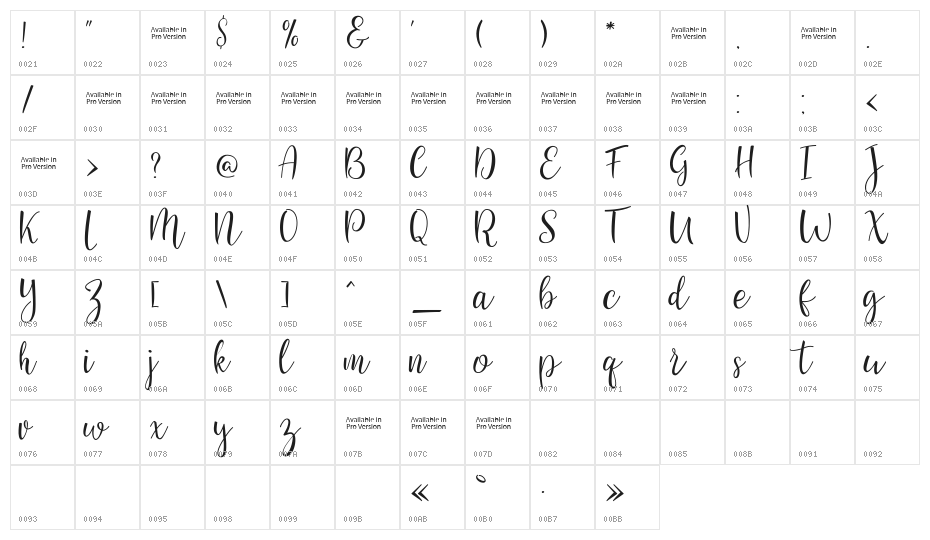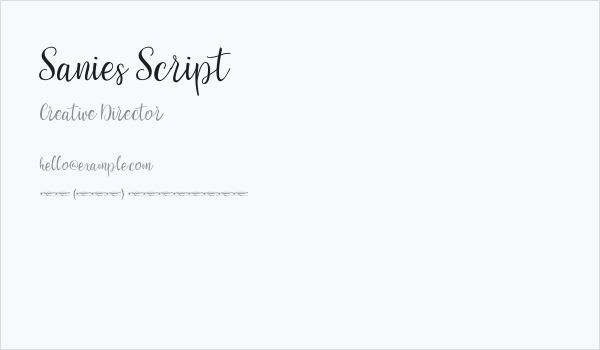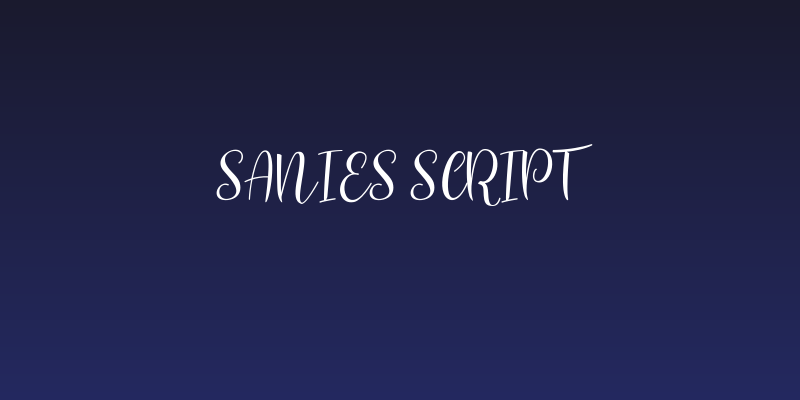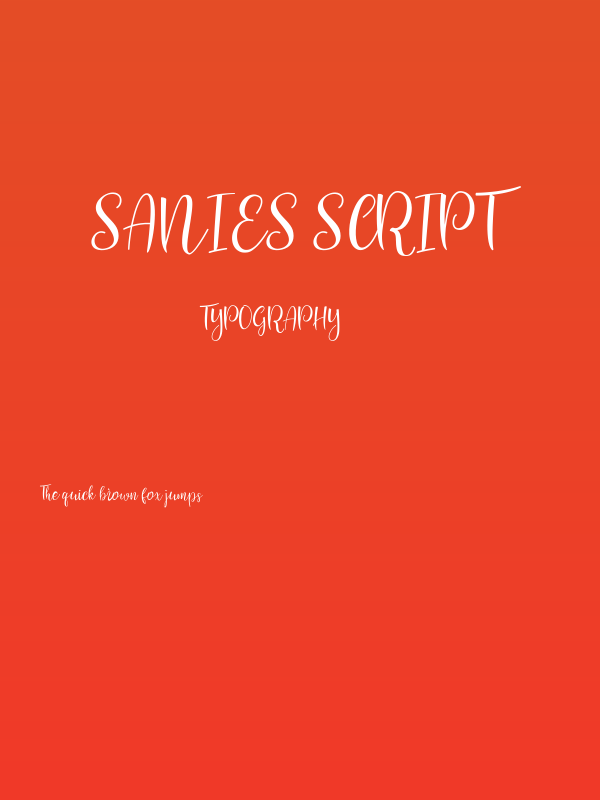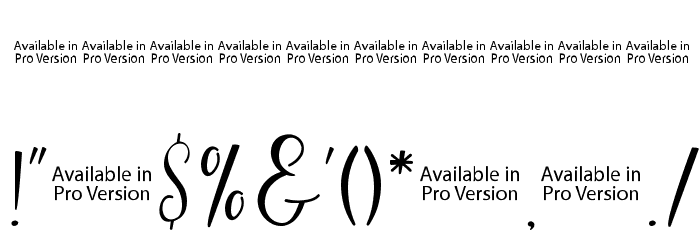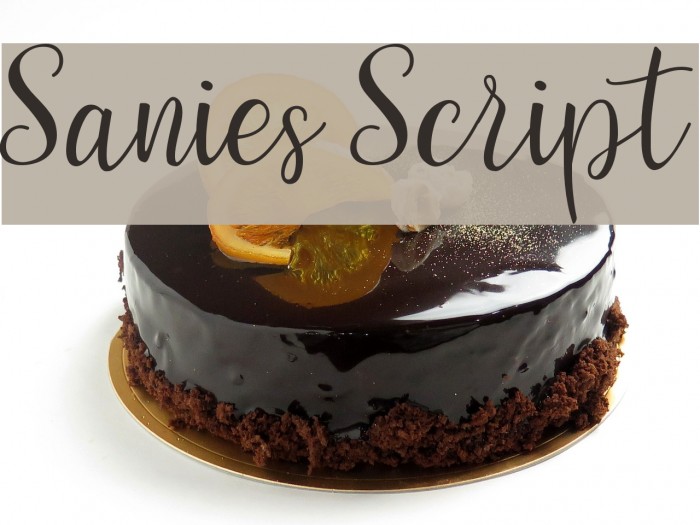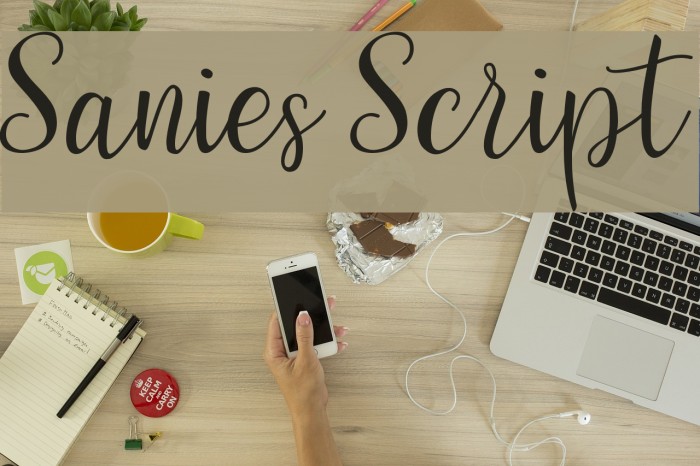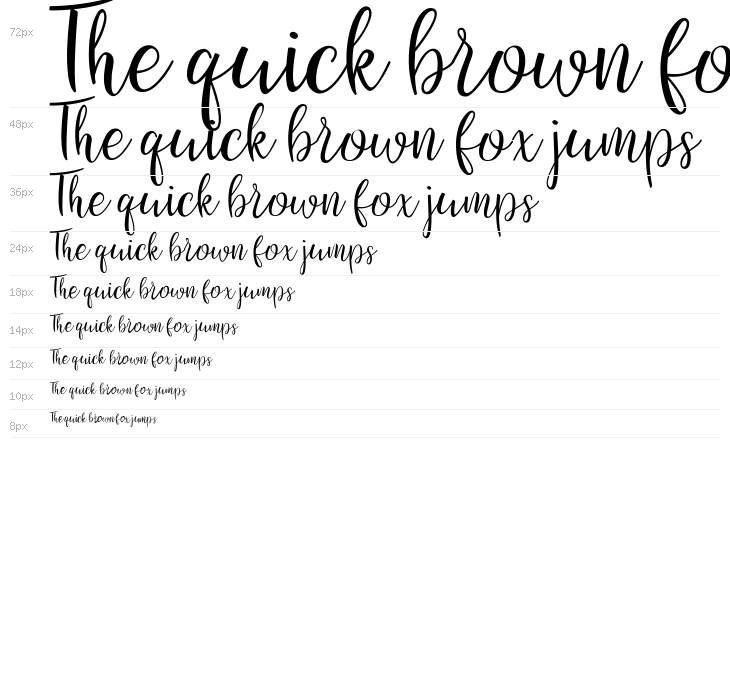
Sanies Script Font
| Estilo general | Elegant, Handwritten |
| Caso de uso | Logos, Invitations, Greeting Cards |
| Proyectos propuestos | Ideal for wedding invitations, greeting cards, personal branding, and elegant logo designs. |